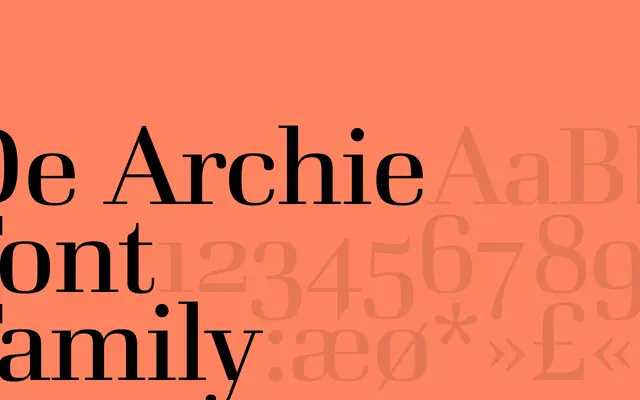
De Archie
A display typeface from Playtype with a characterful, editorial personality suited to headline and expressive typesetting.
De Archie carries the kind of idiosyncratic voice Playtype tend to bring to their display releases, designed for settings where personality matters as much as legibility. The foundry frames it around a compelling character drawn back in despite resistance, which suggests a typeface built for editorial contexts that reward a strong typographic presence. Details beyond a single weight are sparse on the page, but the positioning points firmly toward headline and campaign use.
The sparse page copy and name suggest a distinctive display typeface; classified as display serif based on the editorial and characterful tone implied by the foundry's framing.